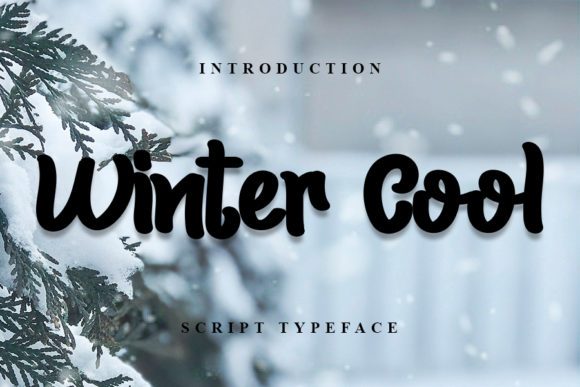
Enter the enchanting realm of Winter Cool, a script font family that captures the essence of elegance and sophistication. Step into a world of creativity where your designs take center stage, adorned with a touch of winter's charm.
Winter Cool, a creation of FL Space, is a captivating handwritten font that dances across your screens with a free-flowing rhythm. Each letter, meticulously crafted, intertwines with delicate strokes, creating a visual symphony that draws the eye.
With its friendly and distinctive flair, Winter Cool effortlessly adapts to a myriad of design projects. Let your imagination soar as you witness your words transform into exquisite works of art. From wedding invitations to album covers, this font adds a touch of magic to every creation.
Embrace the allure of Winter Cool and embark on a journey of visual delight. Experience the joy of crafting designs that resonate with your unique style, all while relishing the seamless user experience.